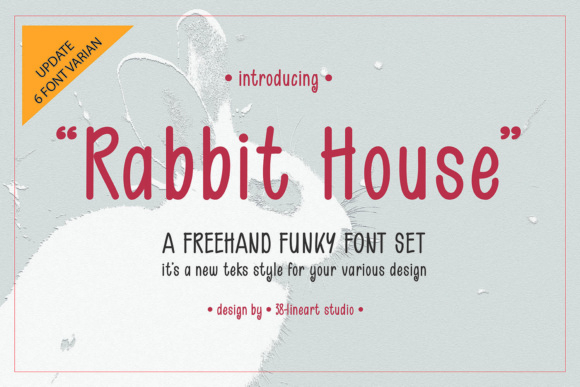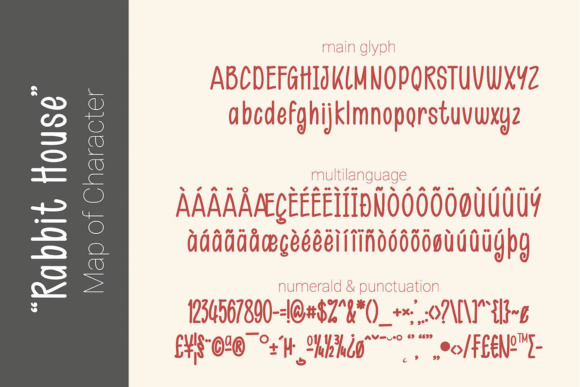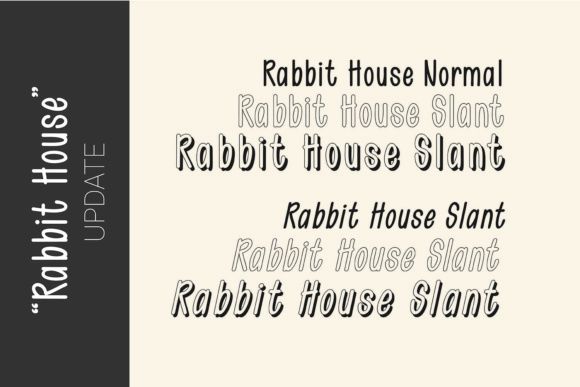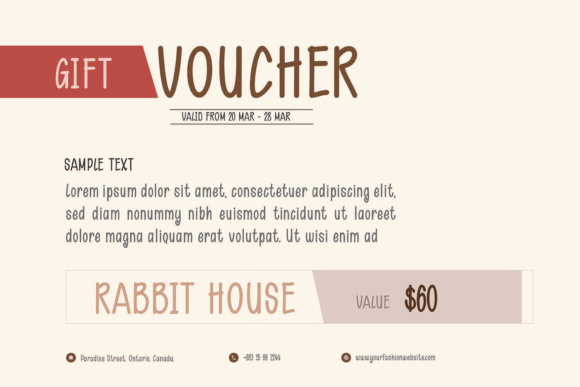
About Rabbit House Font
The Rabbit House is a delightful typeface that balances simplicity with strength. Carefully crafted with smooth lines and curves, it ensures seamless cutting in Cricut or Silhouette machines, making it a practical choice for your crafting projects.
With its cute and funky feel, The Rabbit House adds a touch of playfulness to any design. Whether you’re creating invitations, greeting cards, posters, or other crafts, this typeface brings a whimsical charm that appeals to a wide range of audiences. Its versatility allows it to be used in various contexts, from children’s projects to trendy designs targeting young adults.
The strength of The Rabbit House lies in its clean and well-defined letterforms. Each character is meticulously edited to ensure precision and clarity, resulting in a smooth and professional appearance. Whether you’re working with larger display text or smaller details, the typeface maintains its readability and visual impact.
Furthermore, The Rabbit House’s simplicity allows it to blend seamlessly with different design elements and styles. It can be paired with illustrations, icons, or other fonts to create visually engaging compositions. Its straightforward nature makes it easy to incorporate into a wide range of design themes, from minimalist and modern to cute and whimsical.
The typeface’s compatibility with cutting machines adds an extra layer of convenience for crafters. It ensures that your designs can be effortlessly transformed into physical creations, enhancing the possibilities for personalized gifts, decorations, and other DIY projects.
In summary, The Rabbit House is a simple yet strong typeface that combines smooth lines, cute aesthetics, and practicality for cutting machines. Its versatility, readability, and playful charm make it suitable for various design applications. Whether you’re crafting for personal enjoyment or creating products for sale, The Rabbit House brings a delightful touch to your projects. Get ready to explore the creative possibilities and let your imagination hop with The Rabbit House!